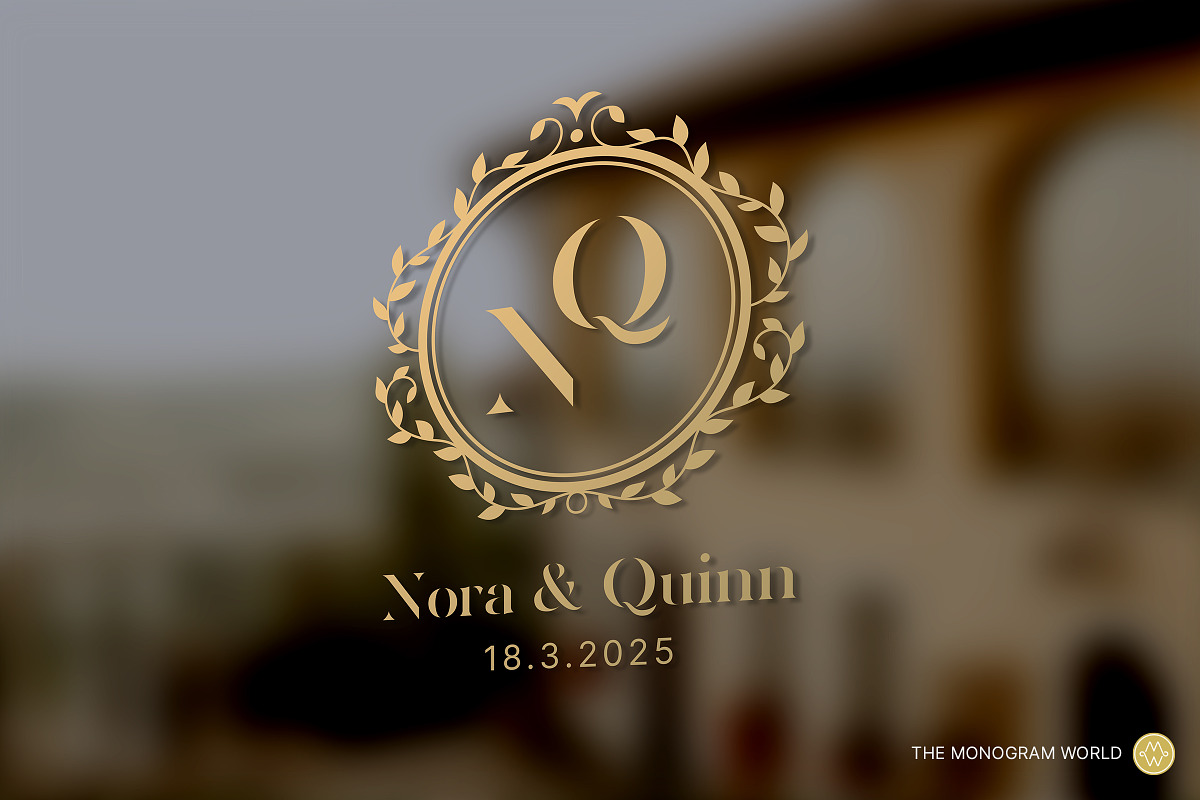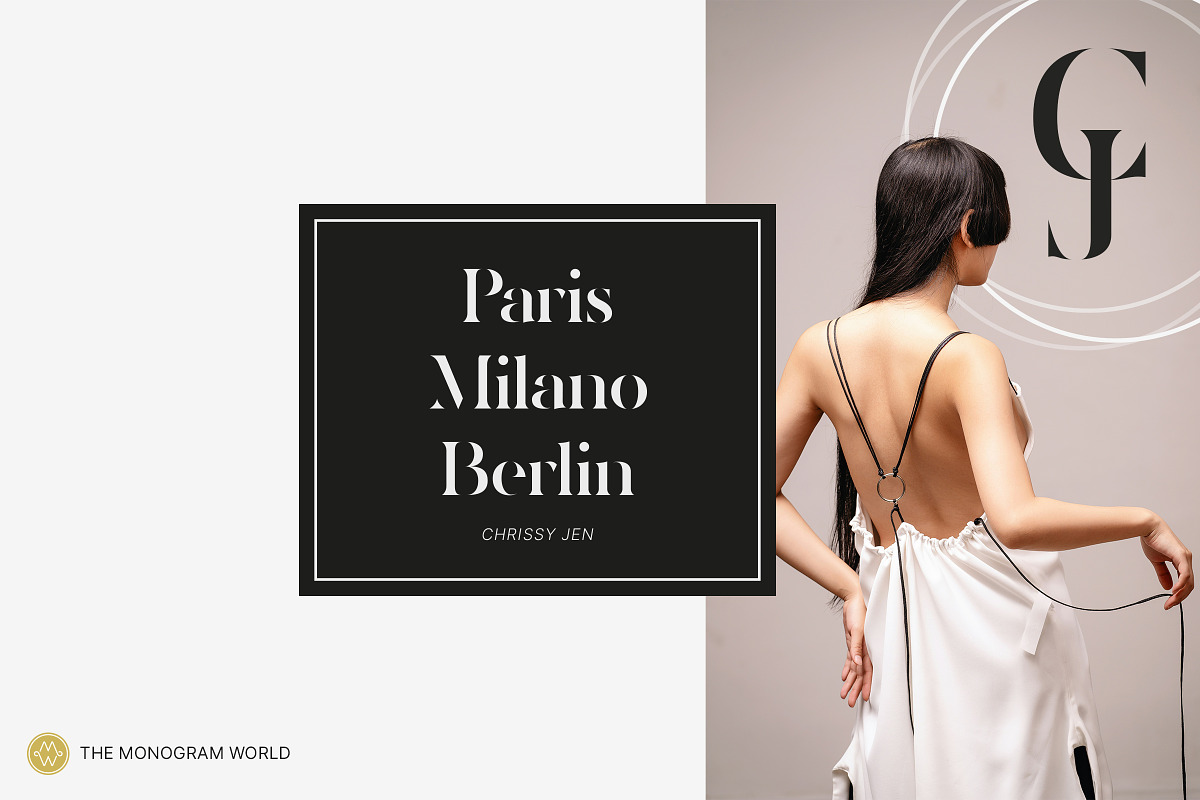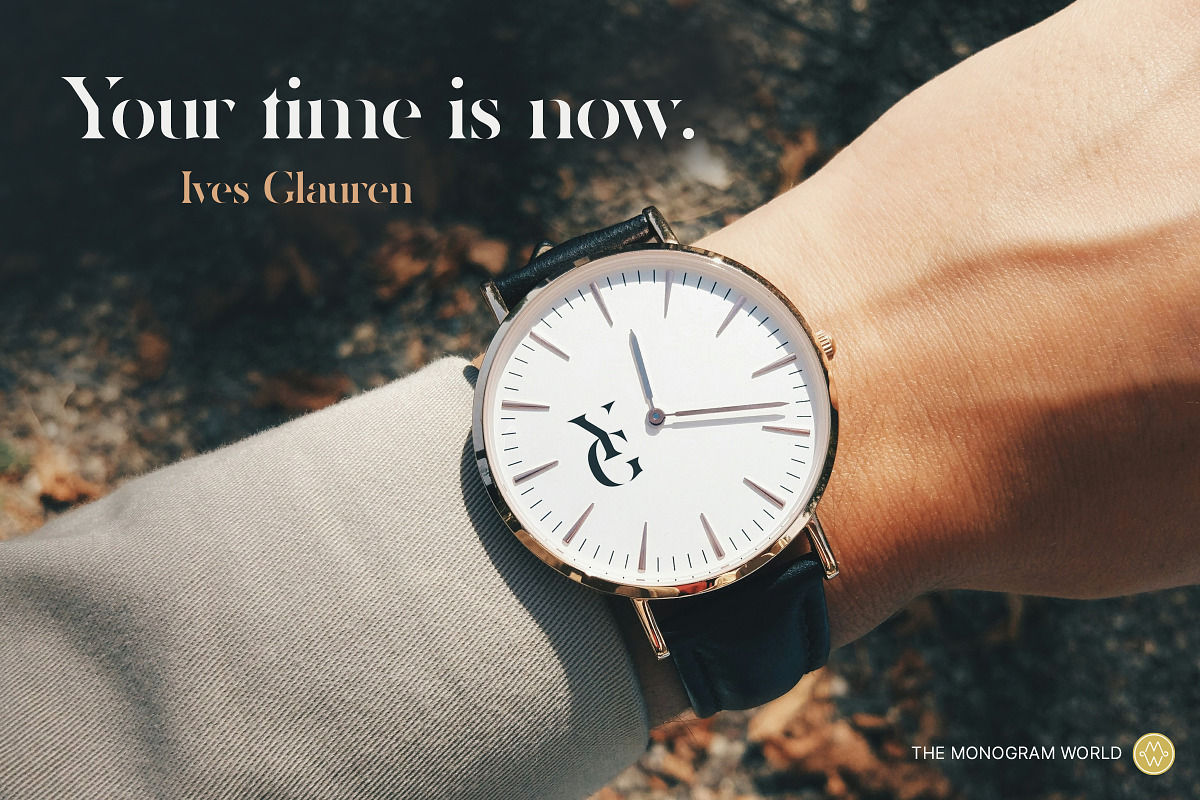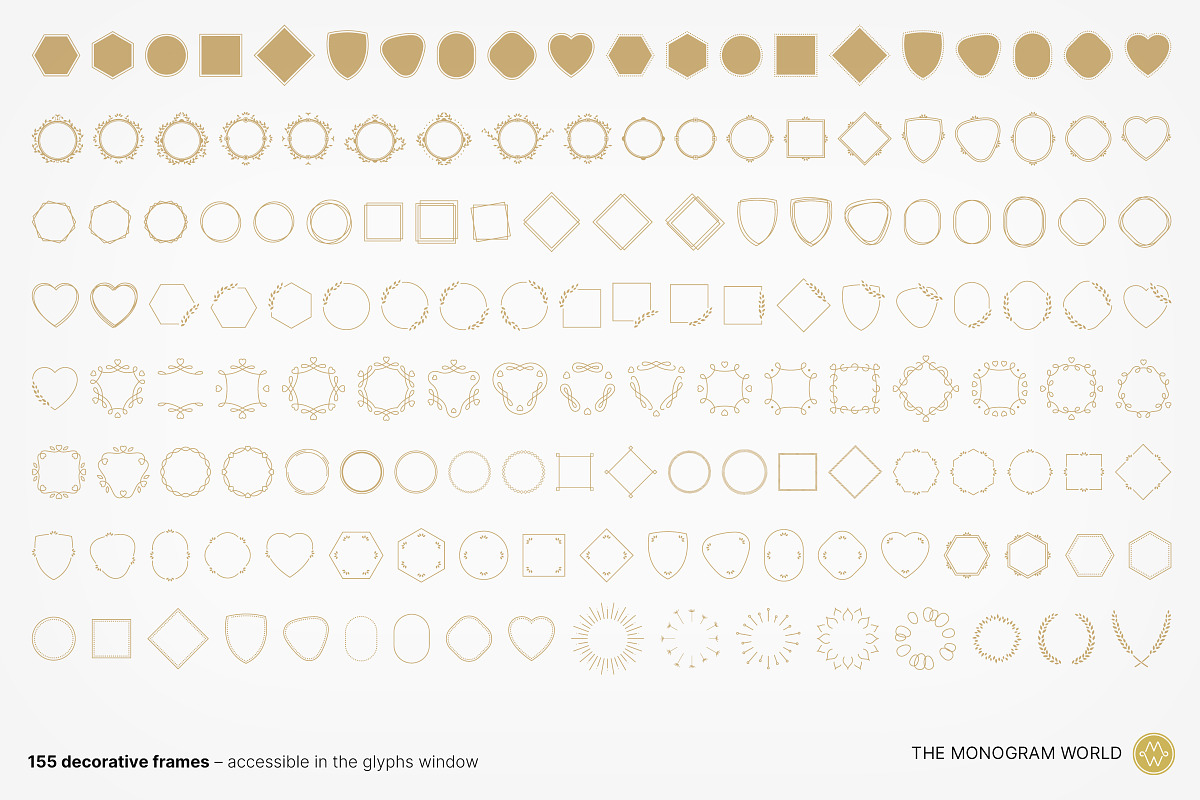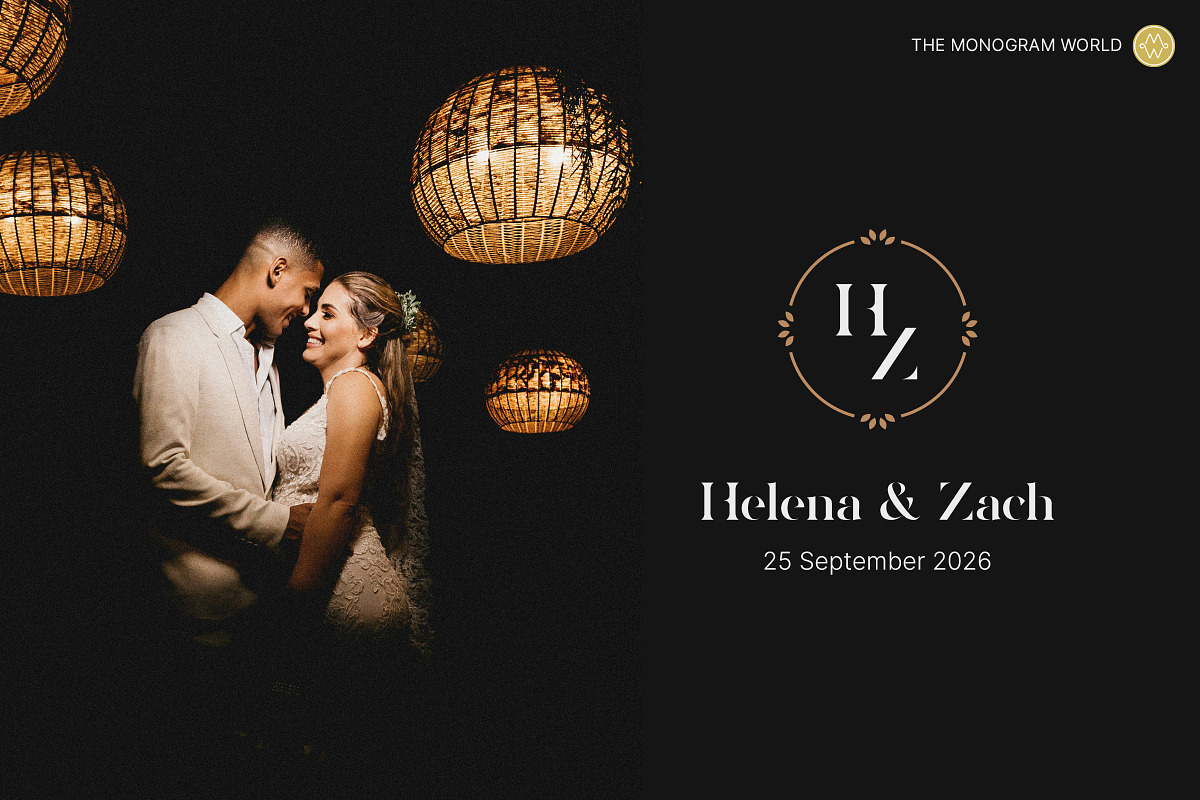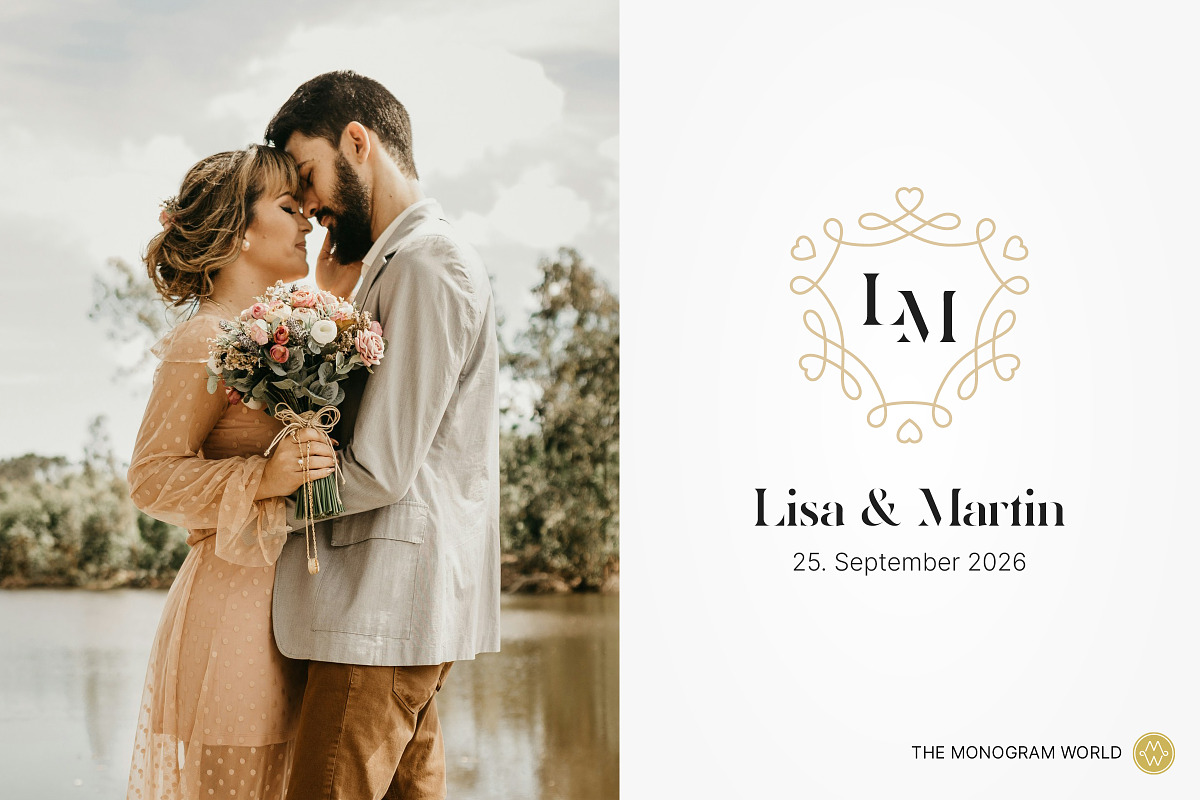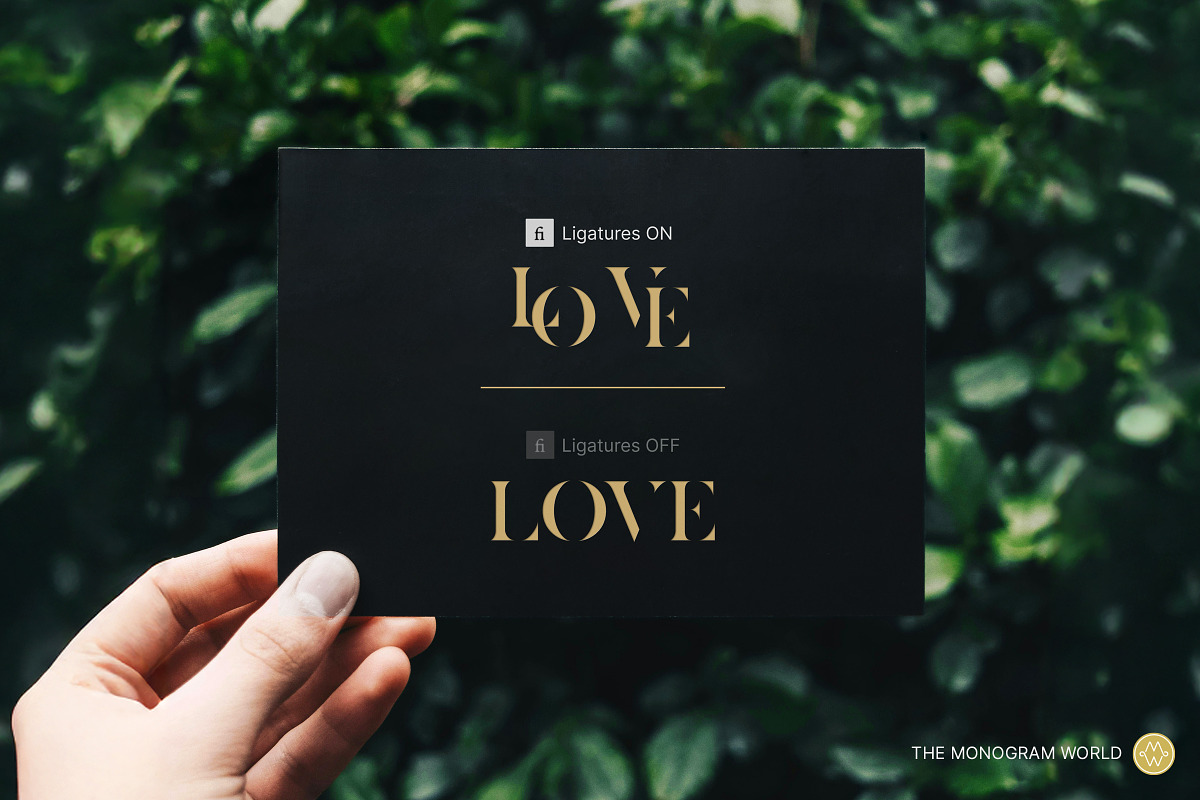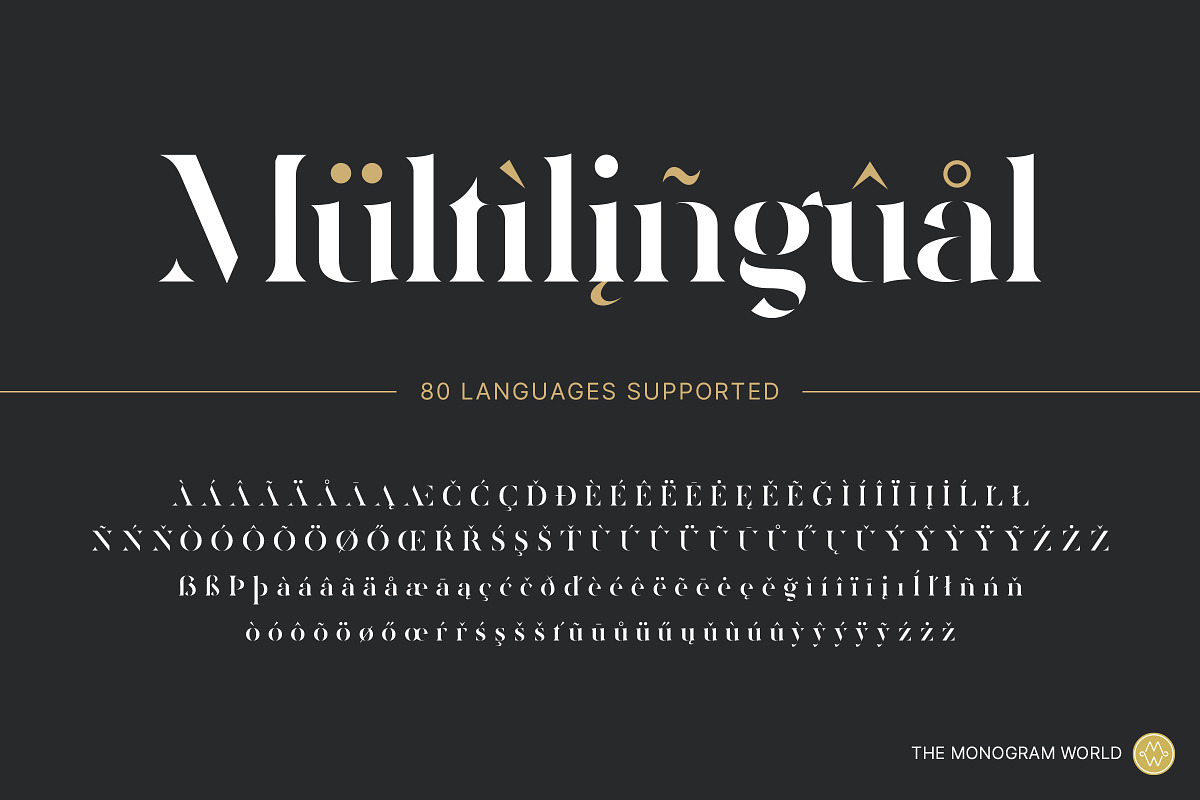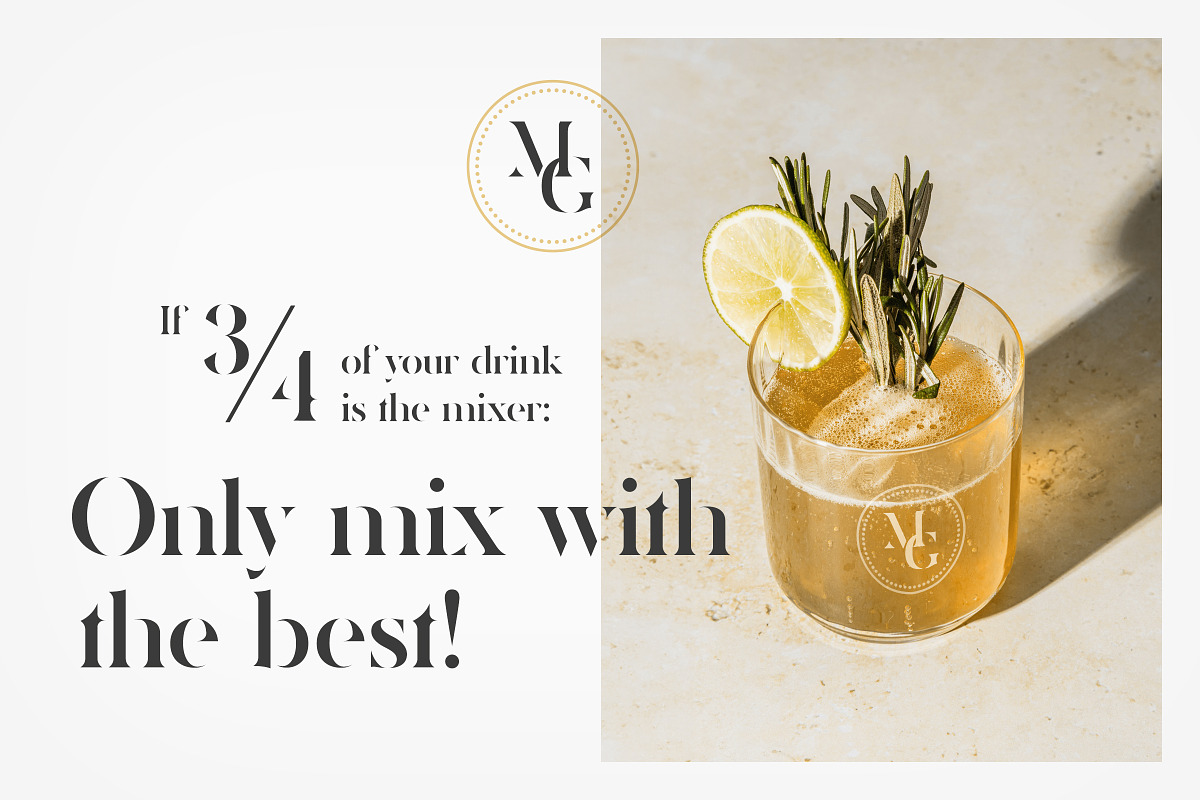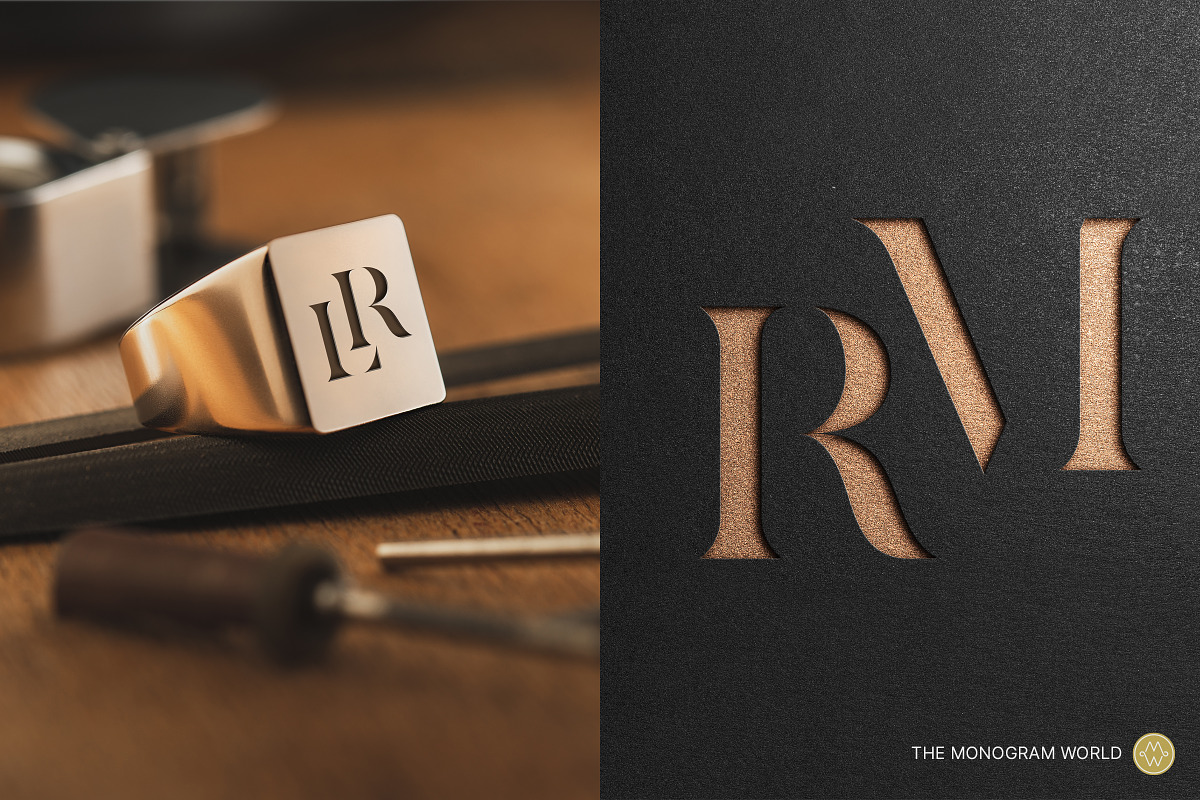
Zerifa – Serif Monogram Font
Display font + monogram logo creator toolkit
Zerifa is a unique „stencil serif“ typeface that includes 676 pre-designed monogram logos and 155 fancy frames. It’s so easy to create amazing logos just with a few clicks!
- 676 pre-made uppercase monograms from AA-ZZ as automatic ligatures: Just type "AB" and your will get a merged AB logo!
- 155 decorative frames
- Bonus: 115 extra monograms (experimental ones)
- 14 lowercase ligatures
- 80 languages supported
- lowercase, uppercase, numbers, punctuation, special characters, etc.
2 in 1: Display Type Face + Monogram Logo Creator Toolkit
A unique combination of two worlds! 676 monograms + 115 bonus monograms + 155 frames = 122.500+ possibile variations
Style:
The sharp, steeply tapered serifs give it a bold, modern and elegant appearance, while the carefully crafted curves embody the essence of perfection. The combination of thick stems and disappearing hairlines creates the most possible contrast, but still assuring perfect readability.
Examples of use:
Zerifa delivers a highly sophisticated feeling, making it perfect for classy wedding monograms. But not only that, it is also an excellent choice for luxury brands and products in the fields of beauty, fashion, jewelry, art, ateliers, handicraft, yoga studios, wine & spirits, hotels or restaurants & bars.
Ligatures ON / OFF
- To get LOGOS, just write UPPERCASE with ligatures „on“ (UP, PE, RC, AS, ED)
- For *UPPERCASE HEADLINES“ and text, turn ligatures „off“: (UPPERCASED)